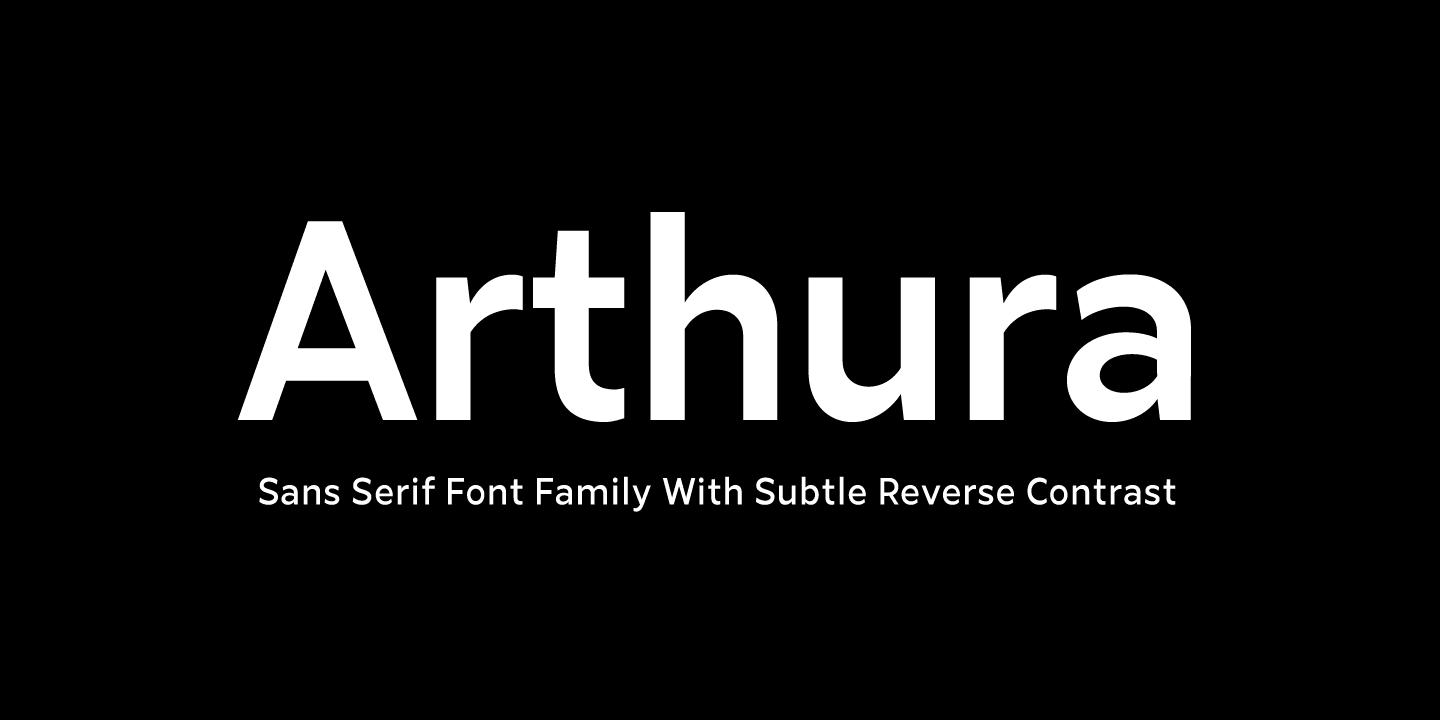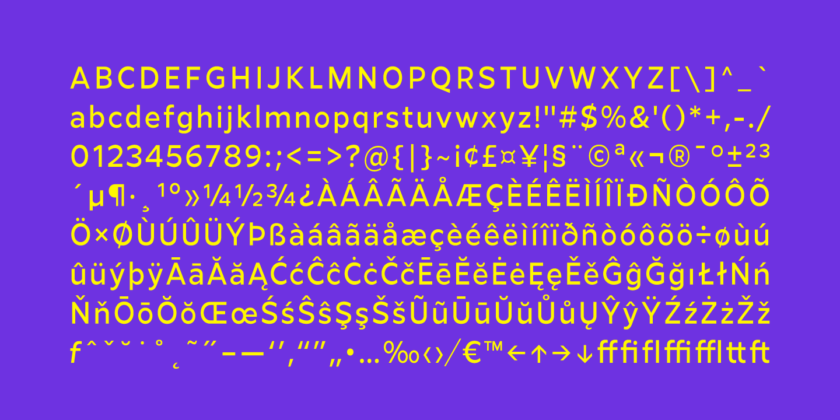
About Arthura
Arthura is a sans serif font family with subtle reverse contrast, particularly visible in its ultra bold \’Black\’ style. Six weights plus matching italics. Simple geometry and with humanist nuance that adds warmth. It\’s a perfect choice for branding, magazines,…